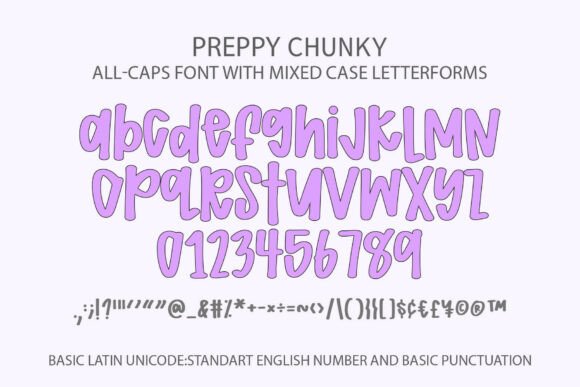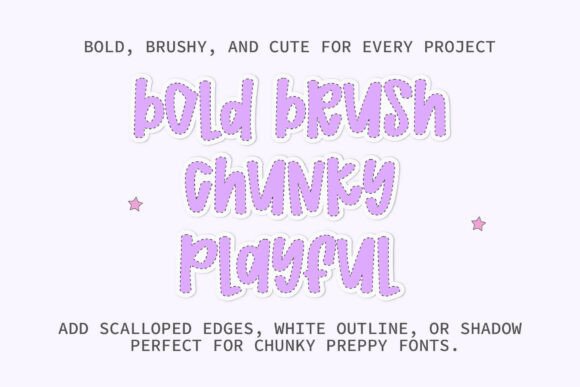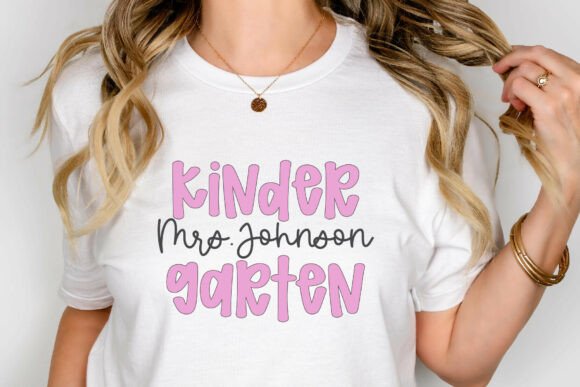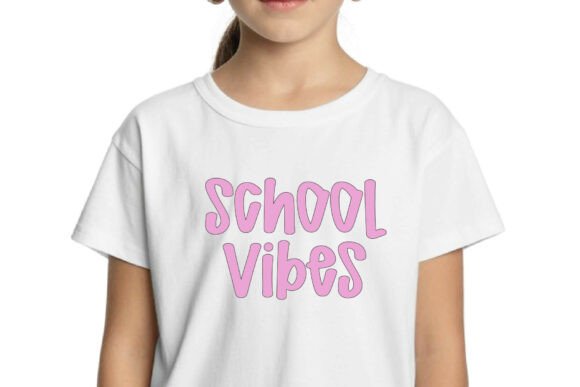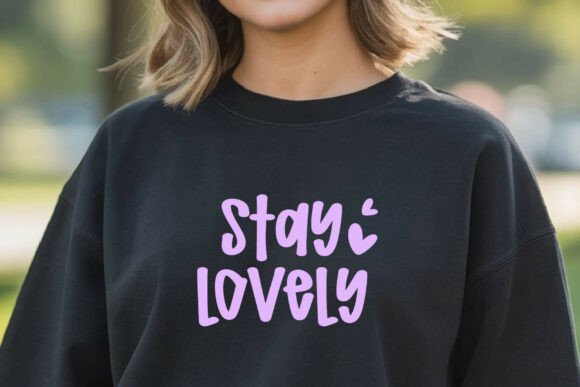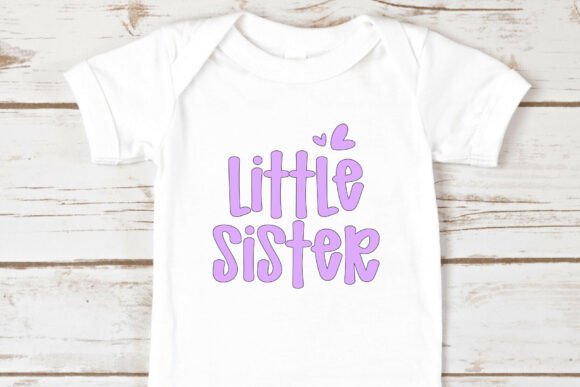
Introduction to Preppy Chunky Font
Playful, modern, and irresistibly cute — Preppy Chunky is a rounded display font made for fun designs and happy vibes.
Its bubbly letterforms and bold curves make it perfect for youth-inspired projects and creative branding This font shines on stickers, t-shirts, planners, social media posts, and digital crafts, offering clarity and charm in every glyph.